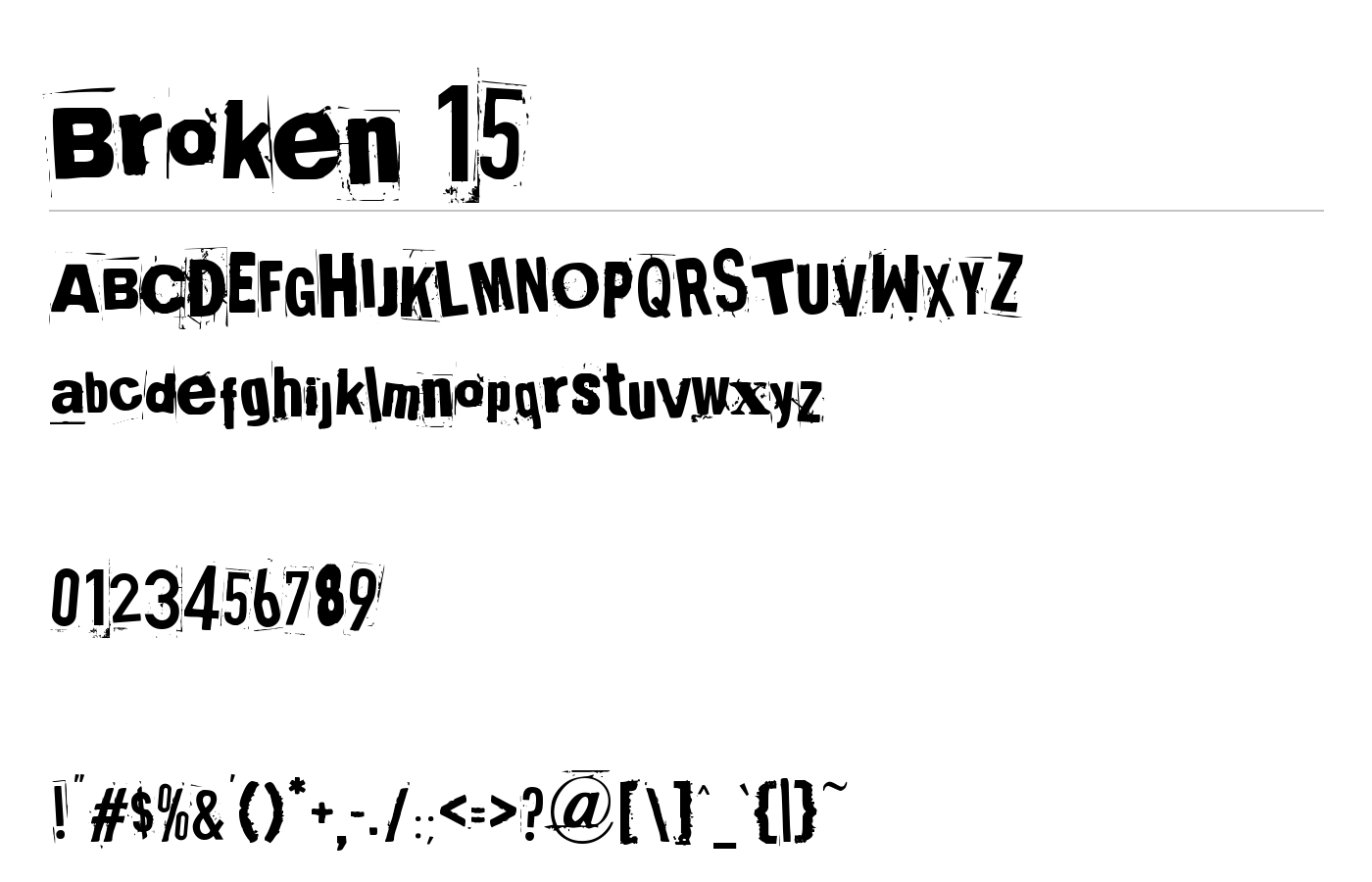
Broken 15 is a bold, distressed sans serif font characterized by uneven, rough edges and a slightly irregular texture that gives an intentionally worn or broken appearance. Its uppercase and lowercase letters are sturdy and compact with medium x-height and a casual, hand-stamped feel, making it ideal for creating edgy, vintage, or grunge-inspired designs. This font works well for posters, logos, and creative projects that seek a rebellious or urban vibe with strong visual impact.
Broken 15 Font